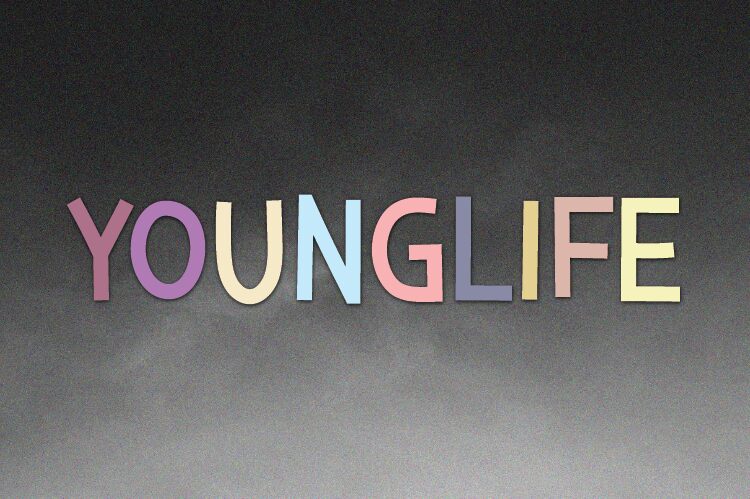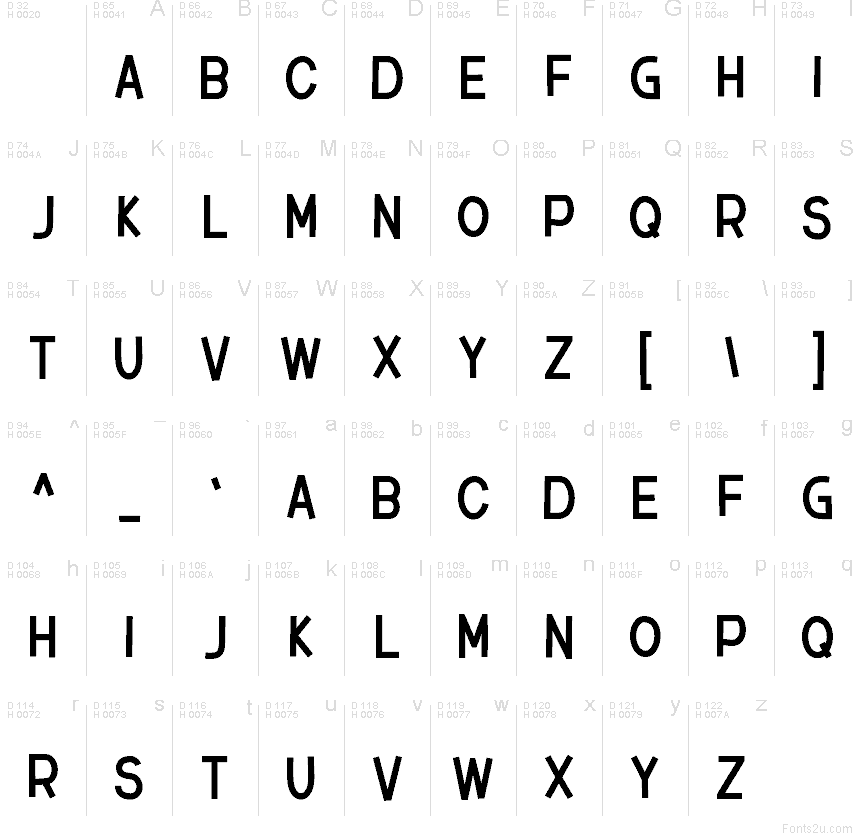
Younglife
Younglife font by HannaBie Creative Studio is a free comic display typeface that feels like it was scratched onto a notebook margin with a thick black marker. Tall, narrow letters with slightly rough edges give it a restless, DIY energy—bold enough to shout, but still friendly and approachable. The tight structure keeps even loud headlines neat, so you get attitude without chaos.
Using Younglife, you can inject punchy personality into youth event flyers, school posters, YouTube thumbnails, social media graphics, zines, stickers, and edgy merch. This free font thrives in big, in-your-face titles; pair it with a clean, simple sans serif for small body text so the hand-drawn look stays readable and strong.